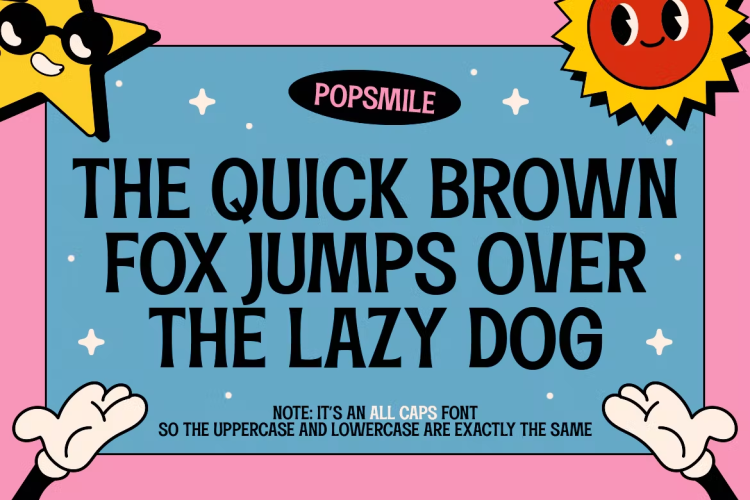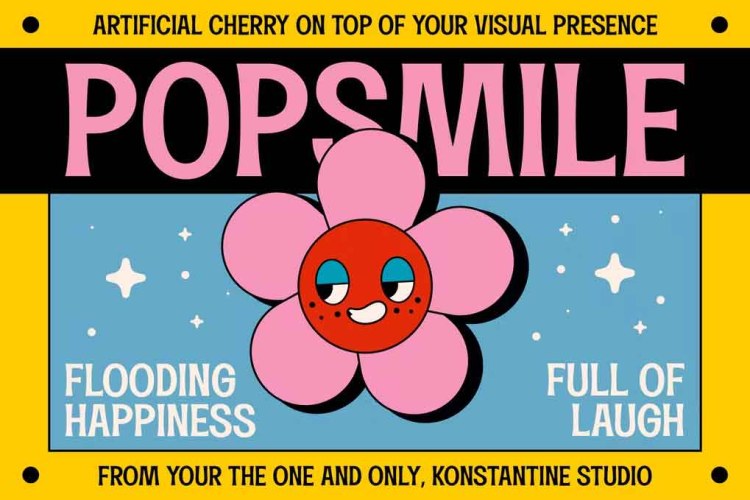
Popsmile Retro Pop Font
Popsmile is inspired by the retro pop culture visual back in the 70s and 80s era. We talk about packaging, posters, signs, advertising, toys, and anything classic and pl…
Popsmile is inspired by the retro pop culture visual back in the 70s and 80s era. We talk about packaging, posters, signs, advertising, toys, and anything classic and playful stuff back in the day.
A perfect companion for your vintage and retro vibes graphic designs indeed.
Where Popsmile Retro Pop Font works best
Popsmile Retro Pop Font keeps its shape at 14 and 16 pixels, which is where interface text actually lives. Numbers and capitals stay distinguishable in tables.
Presentations are read at a distance; a clean sans with a strong bold is the safest hierarchy you can build in a hurry.
Simple letterforms survive angles, glare and movement, so Popsmile Retro Pop Font suits door signs, menus boards and exhibition panels.
What kind of work does Popsmile Retro Pop Font suit?
It sits in the Sans Serif Fonts group and reads as classic, packaging, playful, retro. That makes it a candidate wherever those qualities help: headings, packaging, social graphics and brand work. Set it at the size you plan to use before deciding.